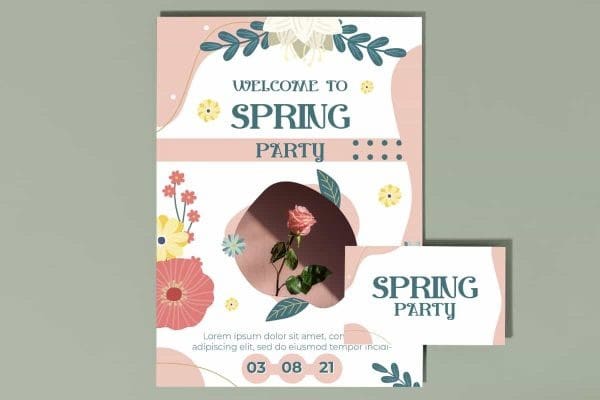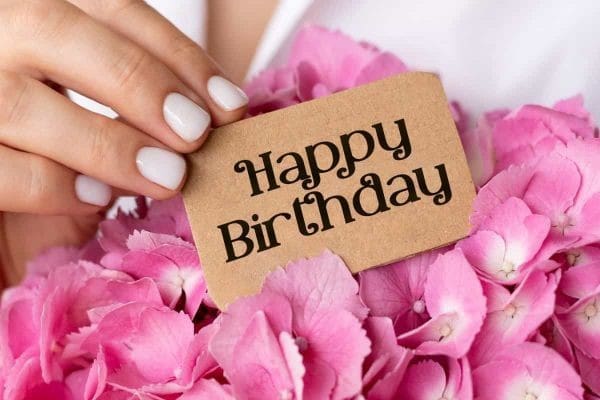
Belgian Daisy Font
Belgian Daisy Font is a beautiful lovely sweet serif display font that is inspired from beautiful flower. The characteristic of this font is the additional lines that are similar to flower petals on each letter, making it look vintage. It will be good for any designs, such as advertisement, brand image, business card, cover, custom design, flyer, invitation, label, menu, poster, product packaging, quote, signage, website page, and more!
Belgian Daisy Font includes a full set of Uppercase and Lowercase Letters, Numerals, and large range of Punctuation. This beautiful font will be suitable for various industries, such as accessories, advertising, cafe, crafting, event or wedding organizer, fashion, florist, marketing, movie, printing, publishing, restaurant, etc.